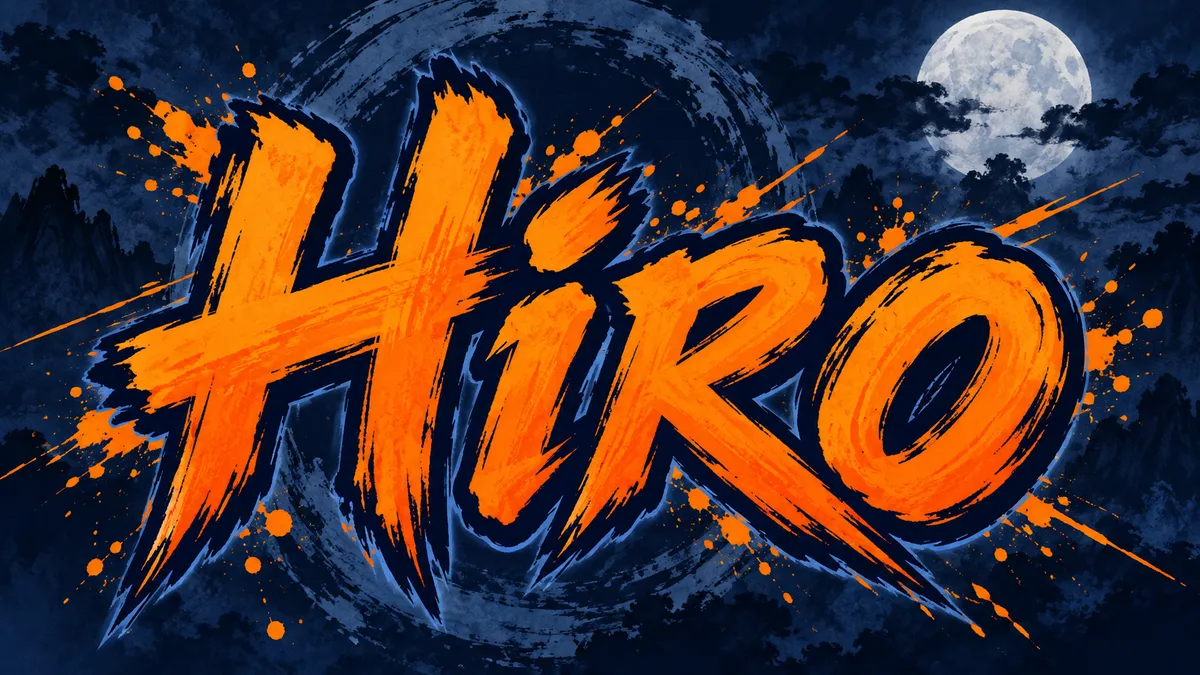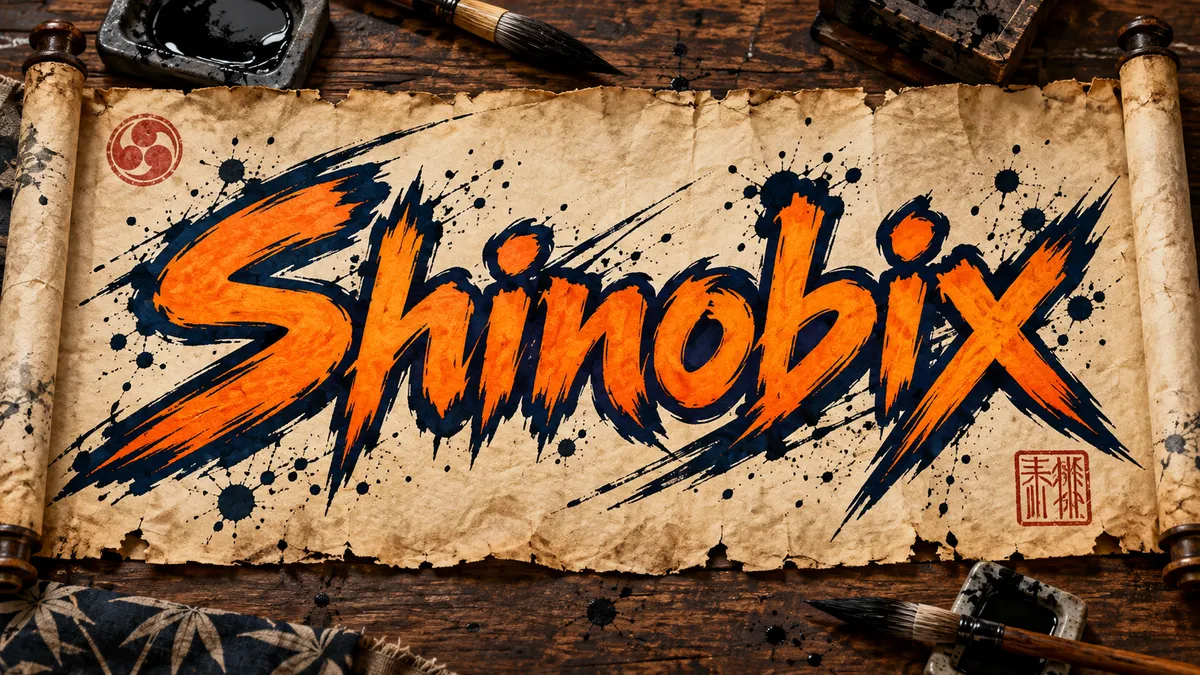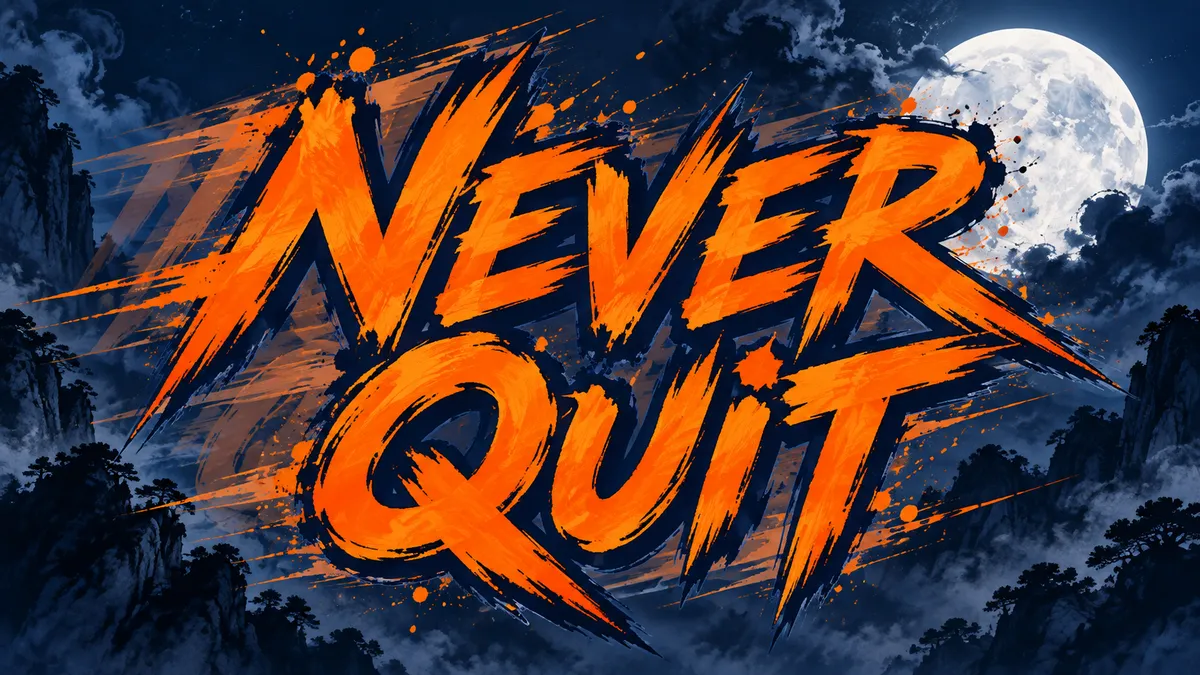
Hand-brushed ninja-scroll capitals in orange and navy with ink splatter, inspired by the shonen classic. Fan-made.
The Naruto font fans search for is the brush-drawn energy of the series logo: bold, rough-edged capitals that look hand-painted with a wide ink brush, a bright orange fill against deep navy, and splashes of ink that suggest speed and impact. Fontique does not provide that typeface or reproduce the Naruto logo. Our AI renders your own name in an original ninja-anime style inspired by that visual language.
Presets explore the world around the lettering. Orange Brush is the bright, energetic base look, Ink Scroll paints your text on an unrolled parchment scroll, Afterimage repeats faint copies behind the word, Blue Energy surrounds it with swirling spiritual power, and Steel Plate engraves the letters into a polished metal plate on cloth.
Each preset changes material, lighting and backdrop while keeping "Hiro" perfectly legible.
Orange Brush
vivid orange brush-stroke letters with a navy outline and flying ink drops, loud and energetic
Ink Scroll
black brush lettering painted on an unrolled aged parchment scroll with red seal stamps and frayed edges
Afterimage
orange letters with several faint translucent copies trailing behind, motion blur, high-speed movement
Blue Energy
letters surrounded by swirling blue spiritual energy and wind currents, glowing edges, focused power
Steel Plate
letters engraved into a polished steel plate riveted to dark blue cloth, metallic shine, warrior emblem feel
No. Fontique does not provide the franchise typeface or recreate the Naruto logo. This is a fan-made generator that renders your text in an original brush-painted ninja style inspired by that look. You receive a unique AI-rendered image rather than a font file.
Latin letters are the most reliable because the model spells them exactly as typed. Kanji and katakana can render with errors, so for Japanese text we recommend generating the romanized version and adding the characters in your editor, or keeping them to a single kanji.